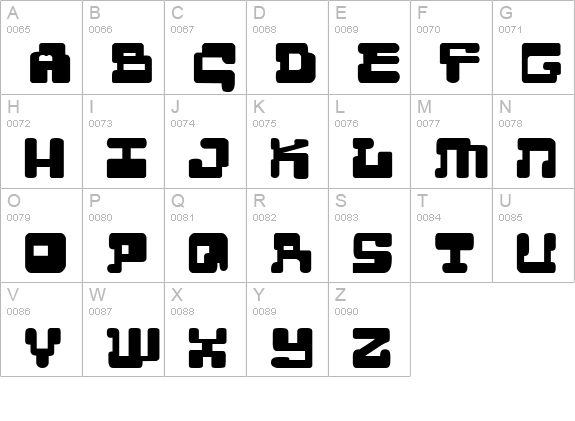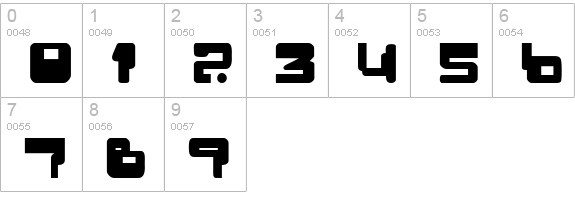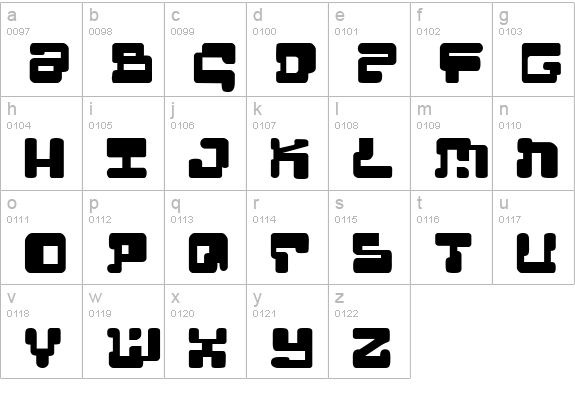
MoultiPass2 Font Details
MoultiPass2 font is a versatile and modern typeface that exudes elegance and sophistication. With its clean lines and stylish design, this font is perfect for a wide range of design projects, from branding to editorial layouts. The sleek and contemporary look of MoultiPass2 font makes it a popular choice for those seeking a fresh and eye-catching aesthetic. What's even better is that MoultiPass2 font is available for free download at FontsMarket.com. This means you can easily access this high-quality font without any cost, making it a fantastic option for both personal and commercial use. So why wait? Elevate your designs with MoultiPass2 font today and bring a touch of modern elegance to your projects.